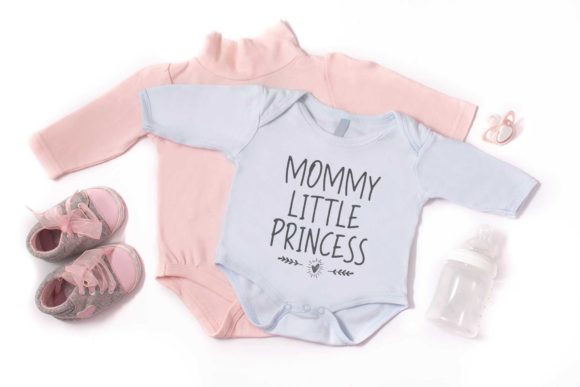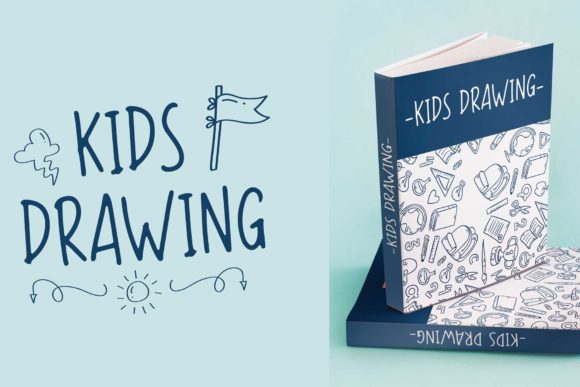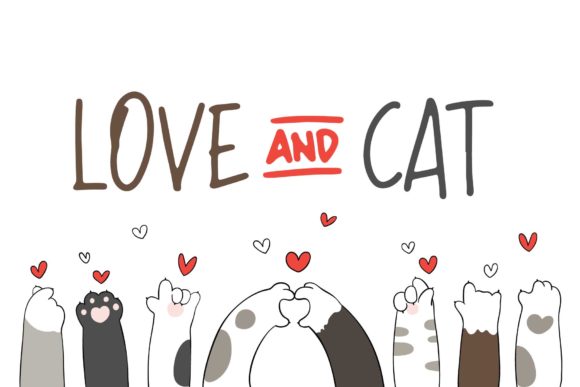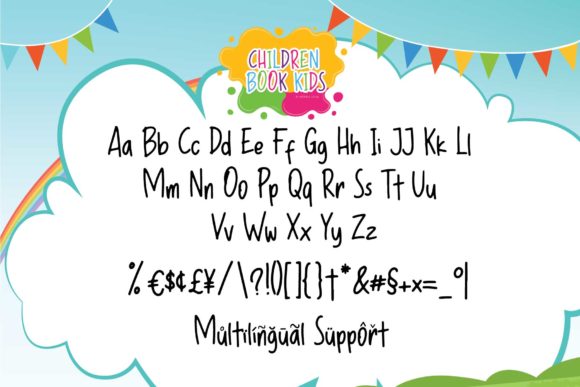
Introduction to Children Book Kids Font Font
Fonts play a crucial role in design, and the Children Book Kids Font font is a typeface that brings both character and versatility to any project. Whether you’re working on a branding project, a website, or a print design, the Children Book Kids Font font offers a unique style that can elevate your work.
Children Book Kids is a cute handwritten font.
Get creative with its childlike playfulness, and use it to brighten up any kids and school project .
Key Features of Children Book Kids Font Font
Why Choose Children Book Kids Font Font?
The Children Book Kids Font font is more than just a typeface – it’s a design tool that helps you communicate your message with style and clarity. Its unique character set and versatile design make it suitable for a wide range of applications, from elegant invitations to bold headlines.
With its carefully crafted letterforms and balanced proportions, the Children Book Kids Font font ensures readability and visual appeal across all mediums.
What makes Children Book Kids Font font special?
The Children Book Kids Font font stands out with its unique design, exceptional readability, and versatility across various design applications.